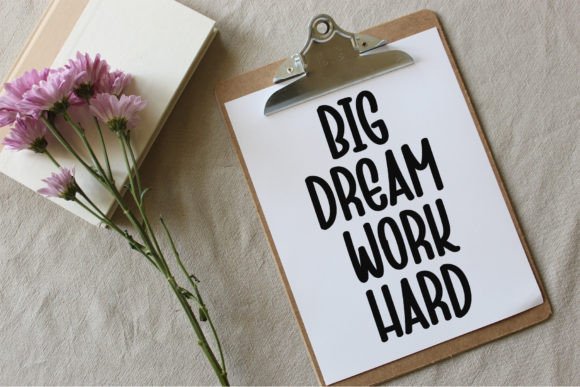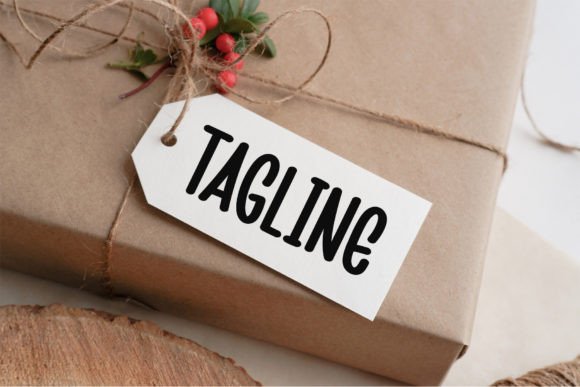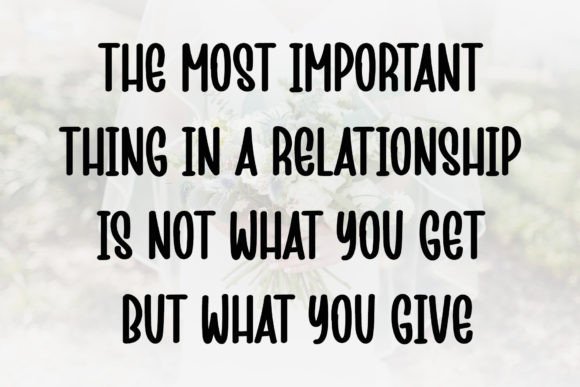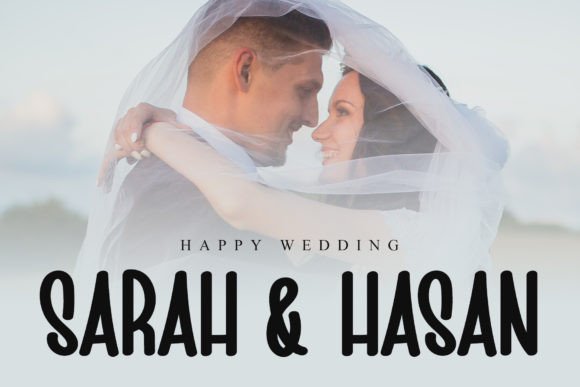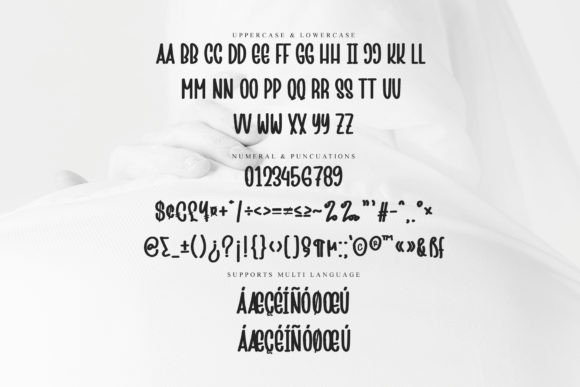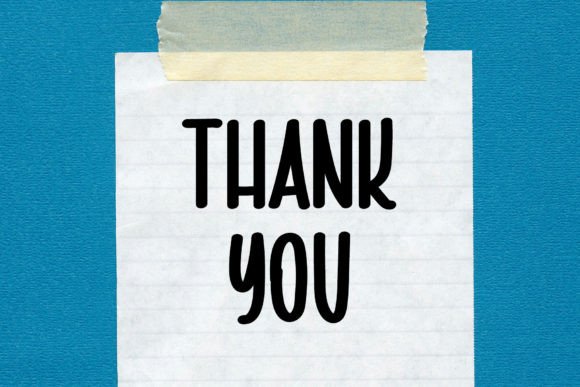
Introduction to Party Beach Font
Have you ever been brainstorming ideas for a creative project and suddenly, the perfect font pops into your head, bringing your entire concept to life? That’s exactly what happened to us when we discovered the stunning Party Beach Font.
This high-quality font has quickly become a go-to design resource for designers of all levels, offering a unique blend of style and versatility that’s perfect for any creative project. With its well-rounded letters and transparent background, the Party Beach Font is a valuable asset for any designer looking to add a touch of elegance and sophistication to their work.
Key Features of Party Beach Font
- High-quality design resource ideal for creative projects, such as party invitations, beach-themed designs, and summer-inspired graphics.
- Features a transparent background, allowing for easy integration with various design elements and backgrounds.
- Includes a unique, hand-drawn style with a playful and festive feel, perfect for adding a touch of whimsy to designs.
Honest Review: Party Beach Font
I recently came across the Party Beach Font while searching for a design resource for my next creative project. As a designer, I’m always on the lookout for high-quality fonts that can add a unique touch to my work.
What works well about this font is its fun and playful vibe, making it perfect for summer-themed designs or any project that needs a carefree feel. The font is available for free download, which is a major plus. The transparent background option is also a nice touch, allowing for easy customization and versatility.
Here are some of the key features I like about the Party Beach Font:
- Fun and playful design style
- Perfect for summer-themed designs or projects with a carefree feel
One thing to keep in mind is that the font may not be suitable for formal or professional designs, as it has a more casual tone. ⚠️ Also, the font may not be as versatile as some other options, but overall it’s a great addition to any design toolbox.
Overall, I’m impressed with the Party Beach Font and would definitely recommend it for creative projects that need a fun and playful touch. ✨ It’s a great resource to have in your design arsenal, and the free download option makes it accessible to designers of all levels.
To get the most out of the Party Beach Font, use it in creative ways such as combining it with other fonts or using it as a creative element in your design. You can also experiment with different font sizes and colors to make your design stand out.
The Party Beach Font is commonly used in design projects such as party invitations, beach-themed designs, and summer-themed campaigns. It’s also great for creating a fun and playful atmosphere in your design.